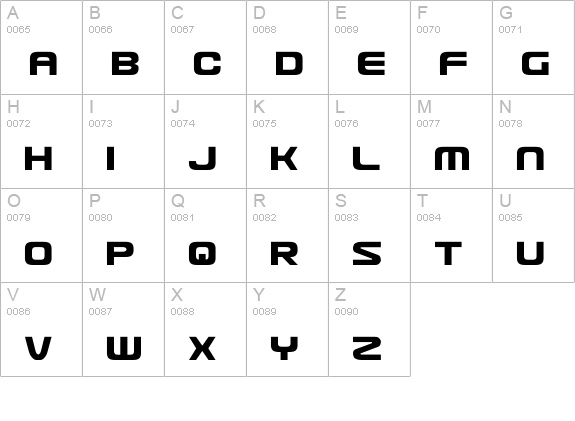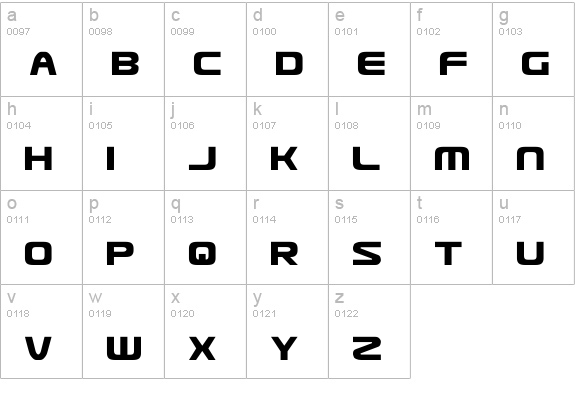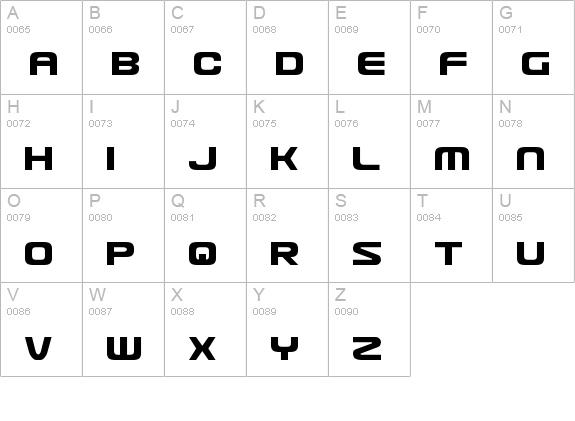
Usuzi Font Details
Introducing Usuzi, a beautifully crafted font that exudes elegance and sophistication. With its sleek and modern design, Usuzi is perfect for adding a touch of class to any project. Its clean lines and balanced proportions make it highly versatile, whether you're designing a logo, creating a website, or crafting a stunning invitation. One of the best things about Usuzi is that it is absolutely free! That's right, this amazing font can be downloaded at no cost from FontsMarket.com. We believe that everyone should have access to high-quality design resources, and that's why we are offering Usuzi as a free download. Not only is Usuzi free, but it is also incredibly easy to use. With a wide range of weights and styles, you can customize this font to suit your specific needs. Whether you want to make a bold statement with the regular weight or add a touch of elegance with the italic style, Usuzi has you covered. Its versatility extends beyond just the weight and style options. Usuzi is also compatible with multiple languages, making it a truly global font. No matter where your audience is located, they will be able to appreciate the beauty of Usuzi. So why wait? Download Usuzi today and elevate your design projects to a whole new level. With its timeless appeal and the fact that it is freely available to download at FontsMarket.com, there's no reason not to give Usuzi a try. Embrace the beauty and versatility of this remarkable font and let your creativity shine.